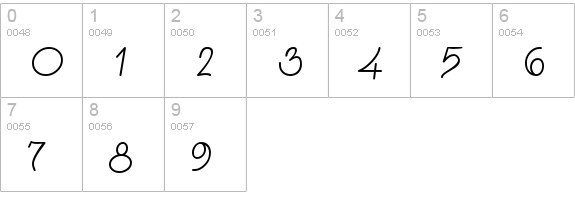
KnewFont Plain Font Details
KnewFont Plain is a contemporary and versatile typeface that seamlessly combines elegance with simplicity. This font exudes a sense of sophistication, making it perfect for a wide range of design projects. Whether you're creating a professional logo, designing a sleek website, or crafting eye-catching advertisements, KnewFont Plain will effortlessly elevate your work to a whole new level. With its clean lines and balanced letterforms, KnewFont Plain offers a timeless aesthetic that can adapt to any design style. Its readability and legibility make it an excellent choice for both body text and headlines, ensuring that your message is conveyed effortlessly to your audience. One of the most remarkable features of KnewFont Plain is that it's completely free. That's right, this exceptional font is available for download at FontsMarket.com at absolutely no cost. So, you can enjoy the benefits of this stunning typeface without putting a dent in your budget. Whether you're a professional designer, a student, or simply someone who enjoys experimenting with typography, KnewFont Plain is a must-have addition to your font library. Its versatility, elegance, and the fact that it's freely available to download make it an irresistible choice for anyone seeking to enhance their design projects. So why wait? Head over to FontsMarket.com and get your hands on KnewFont Plain today. Elevate your designs and captivate your audience with this remarkable font that combines beauty and accessibility effortlessly.